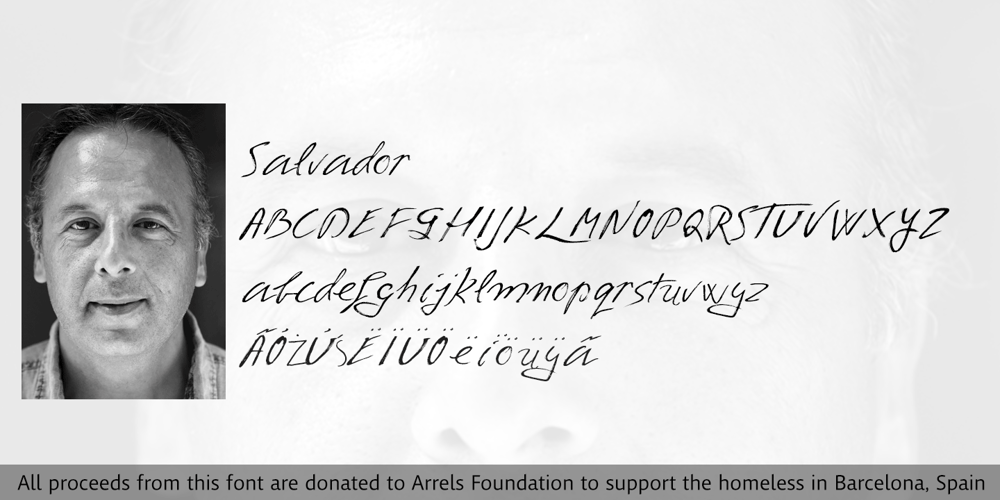
Salvador Font Family was designed by published by Homelessfonts. Salvador contains 1 styles and family package options. Homelessfonts is an initiative by the Arrels foundation to support, raise awareness and bring some dignity to the life of homeless people in Barcelona Spain. Each of the fonts was carefully digitized from the handwriting of different homeless people who agreed to participate in this initiative. A biography/story of each homeless person captures their story, to help raise awareness and bring some dignity to the life of homeless people. Monotype is pleased to donate all revenue from the sales of Homelessfonts to the Arrels foundation in support of their mission to provide the homeless people in Barcelona with a path to independence with accommodations, food, social and health care. Salvador was born in a small village in the province of Seville, Spain where he lived until 2002. During many years he worked in restaurants, construction, and in the fields, until he decided to go try his luck in Palma de Mallorca. There he worked in hotels and in construction, until the economic crisis erupted and he was left without work or benefits of any kind and he began to live in the street: “The street has few good things, but it teaches you to be more selfless, to share with others what you have, even if it isn’t much.” In 2006, a friend encouraged him to come along to Barcelona and bought his plane ticket. Once there, things did not go much better and he had to continue living in the street. A year ago he left behind that life and now he explains his experience in guided tours to school groups: “I like it because I see that many of them are interested and they ask questions. It is good that they learn.”